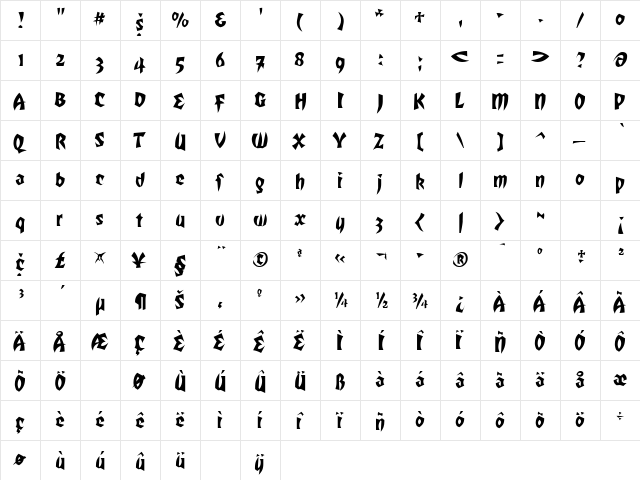
SlavonicSSK Regular
Design Context for SlavonicSSK Typeface
SlavonicSSK is a composed and adaptable typeface that performs quietly and consistently across a wide range of design contexts.